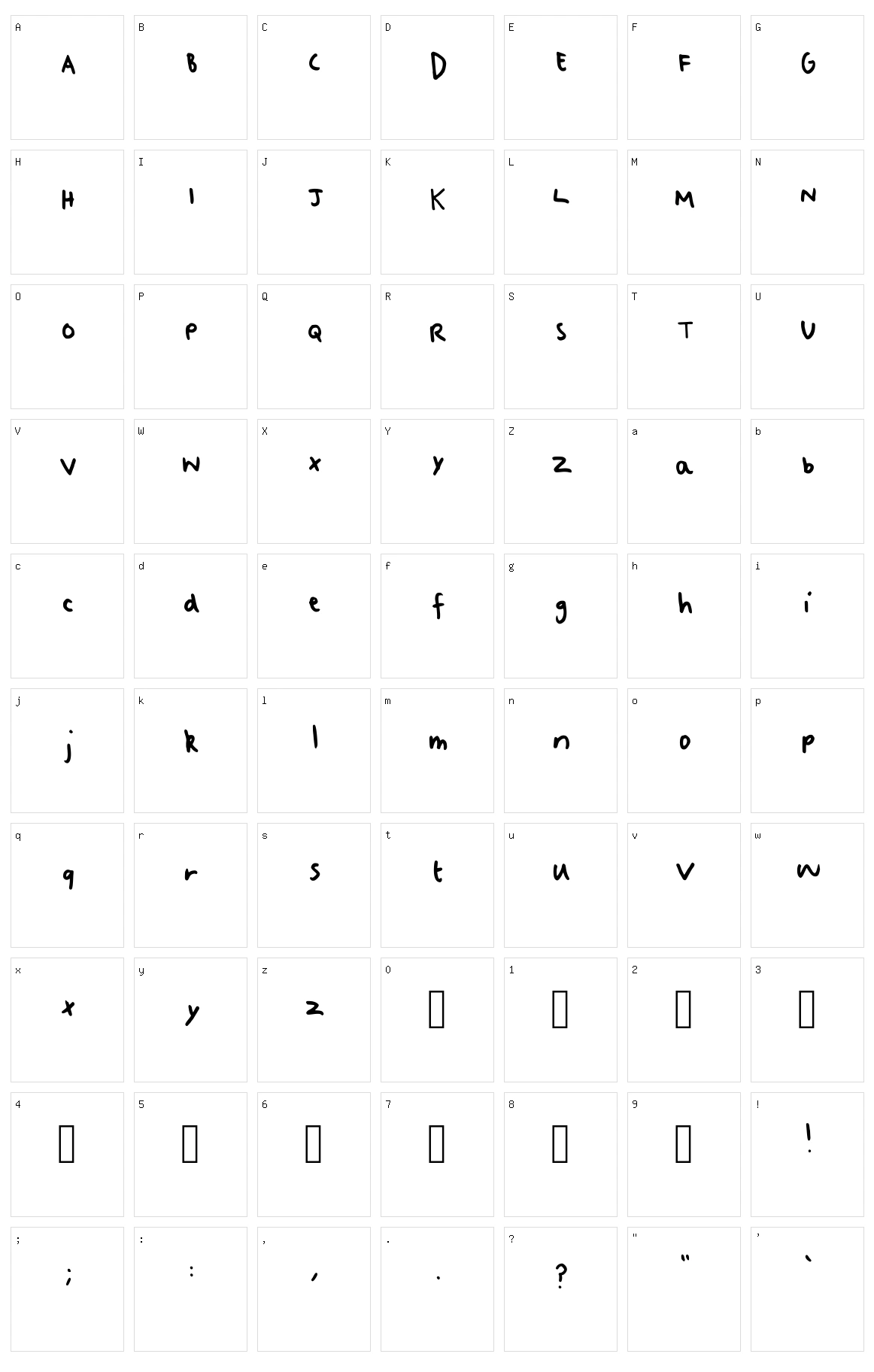
The free font Messy Smiling Cactus is carefully designed by kaitalanisdesigns, showcasing a thoughtful balance of creativity and usability and falls under the Script font style. When you download the ZIP file, it contains only 7.3 KB of font files, making it lightweight and quick to download. Please review the license details below to understand permitted usage and distribution rights. If license information is not available, we recommend using this font for personal projects only or contacting the author directly for commercial usage permissions.